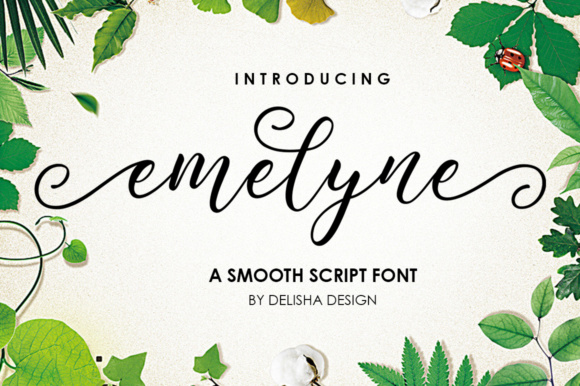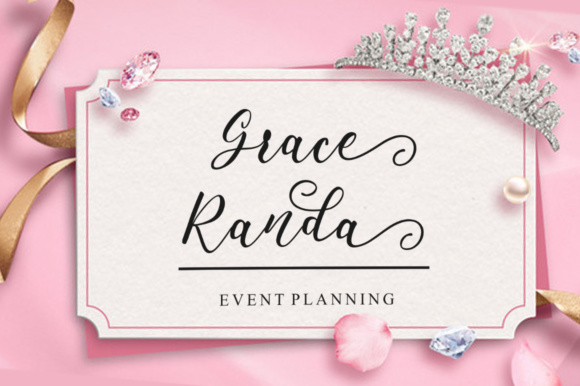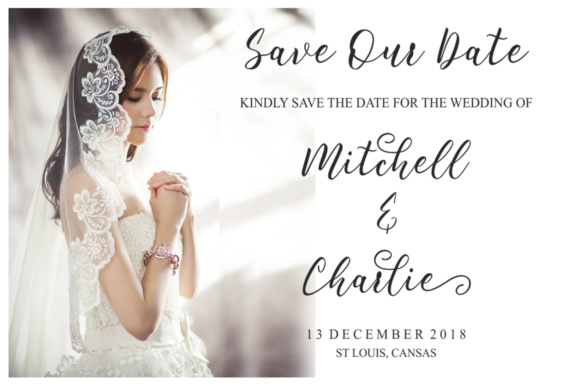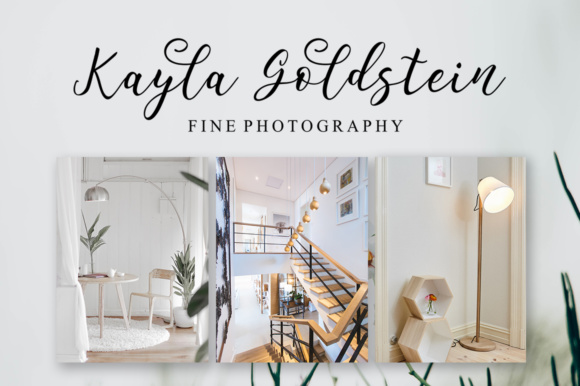
Emelyne Script Font Font
About the Emelyne Script Font Font
From logos to headlines, the Emelyne Script Font Font is the perfect choice for making a lasting impression. Emelyne is a new, modern calligraphy-style font. This fresh design is perfect for a large range of projects.
Emelyne’s flowing forms make it ideal for headlines, short text blocks in branding materials, and elegant packaging design. Its calligraphic nature lends itself well to invitations, wedding stationery, or projects requiring a touch of sophistication. However, due to its decorative style, it’s less suitable for body text or user interfaces where readability is paramount; long paragraphs set in Emelyne would be difficult to read.
Consider pairing Emelyne with a clean sans-serif like Open Sans for body copy, creating a balanced contrast between the script and a neutral typeface. For a more modern feel, a geometric sans-serif such as Futura would offer a strong counterpoint to Emelyne’s organic strokes. Alternatively, a subtle serif like Lora could add a touch of classic elegance.
Emelyne projects a sophisticated yet approachable personality, best suited for brands emphasizing quality, craftsmanship, or a sense of refined style. Its modern calligraphy style avoids being overly fussy, retaining a contemporary feel.
Emelyne Script Font Font Usage Examples
Emelyne Script Font Font Example